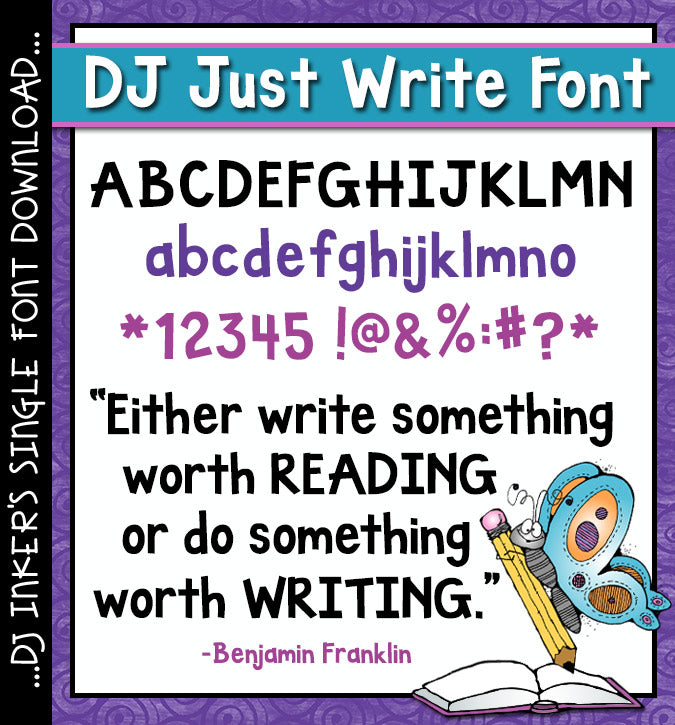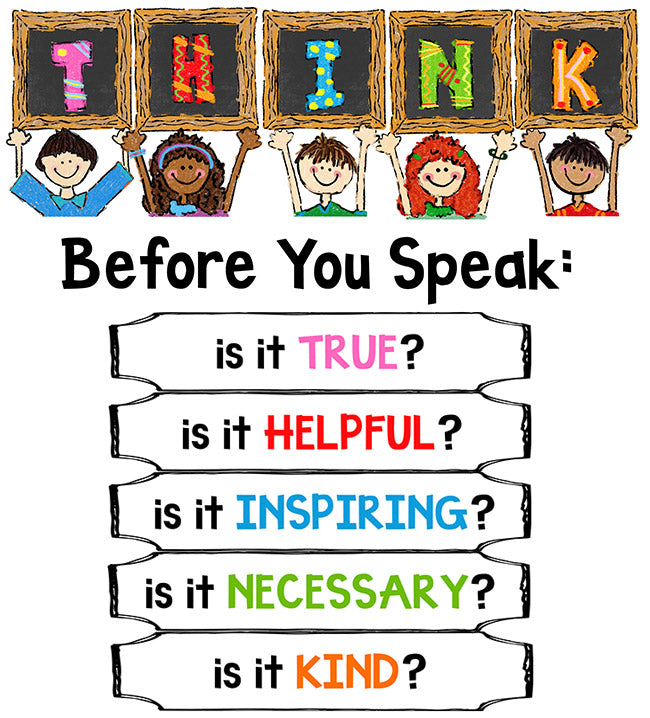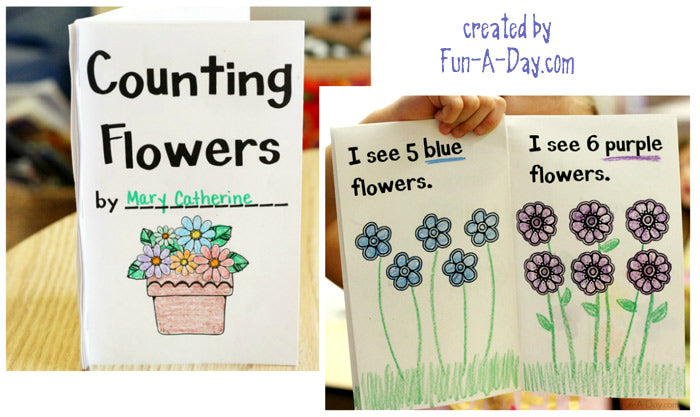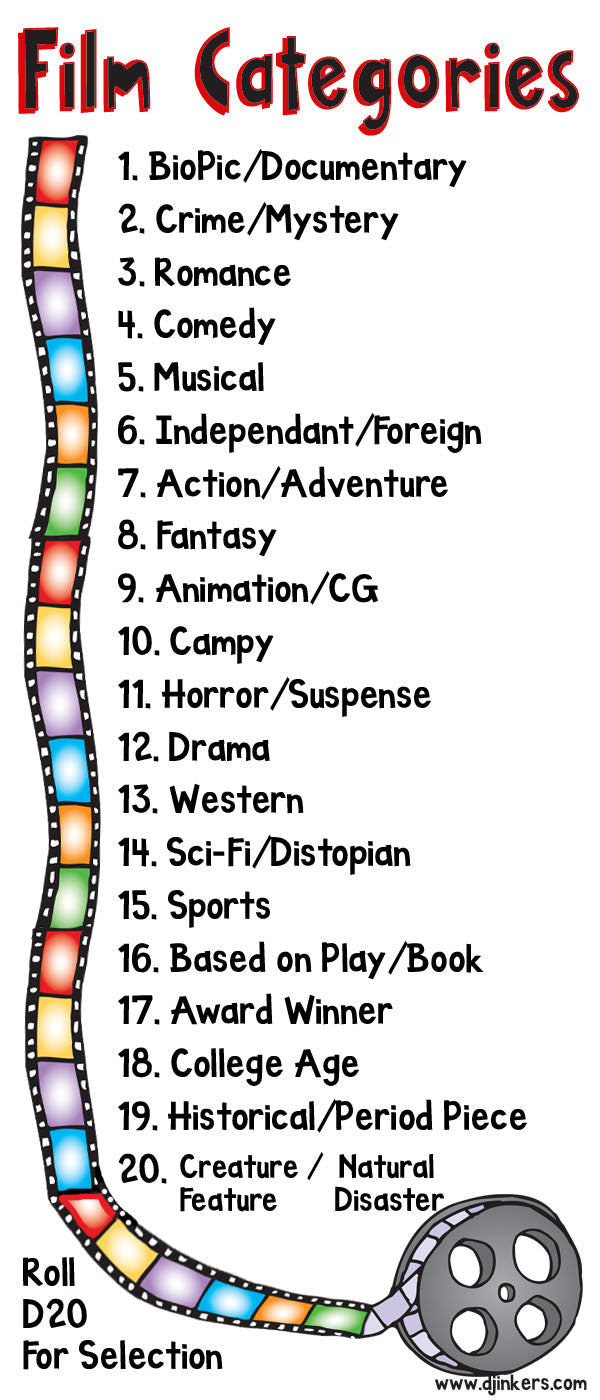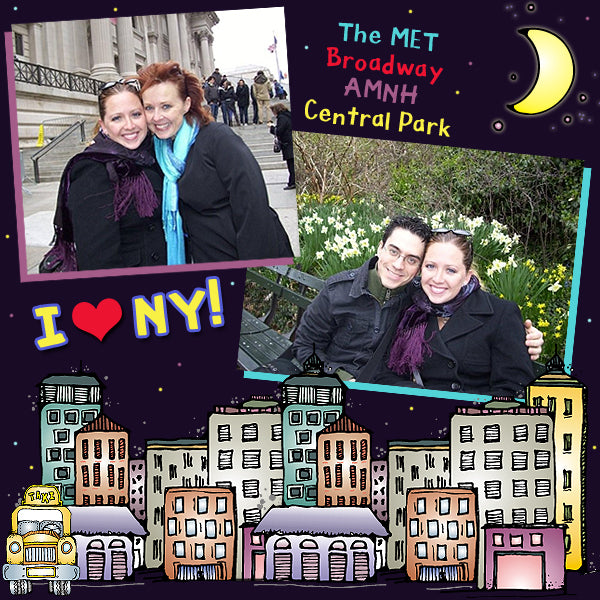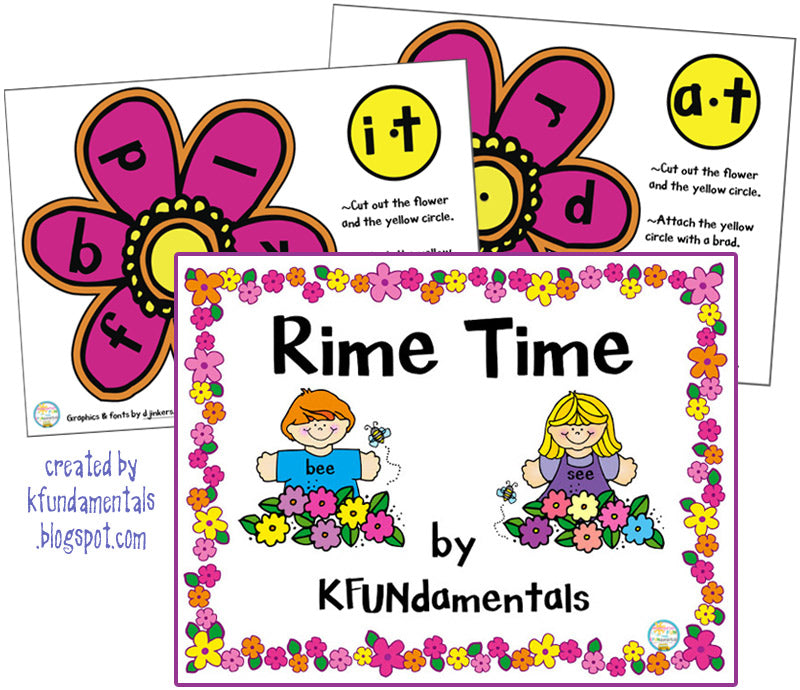
This bold block letter font by DJ Inkers is Just Write!
DJ Just Write Font Download
This bold block letter font by DJ Inkers is Just Write!
DJ Just Write Font Download
This bold DJ font will add a smile to your creations that is Just Write. When you type using this lettering, your text will be strong & straight forward... with just a touch of whimsy. Perfect for teachers, posters, nameplates, banners and headlines.